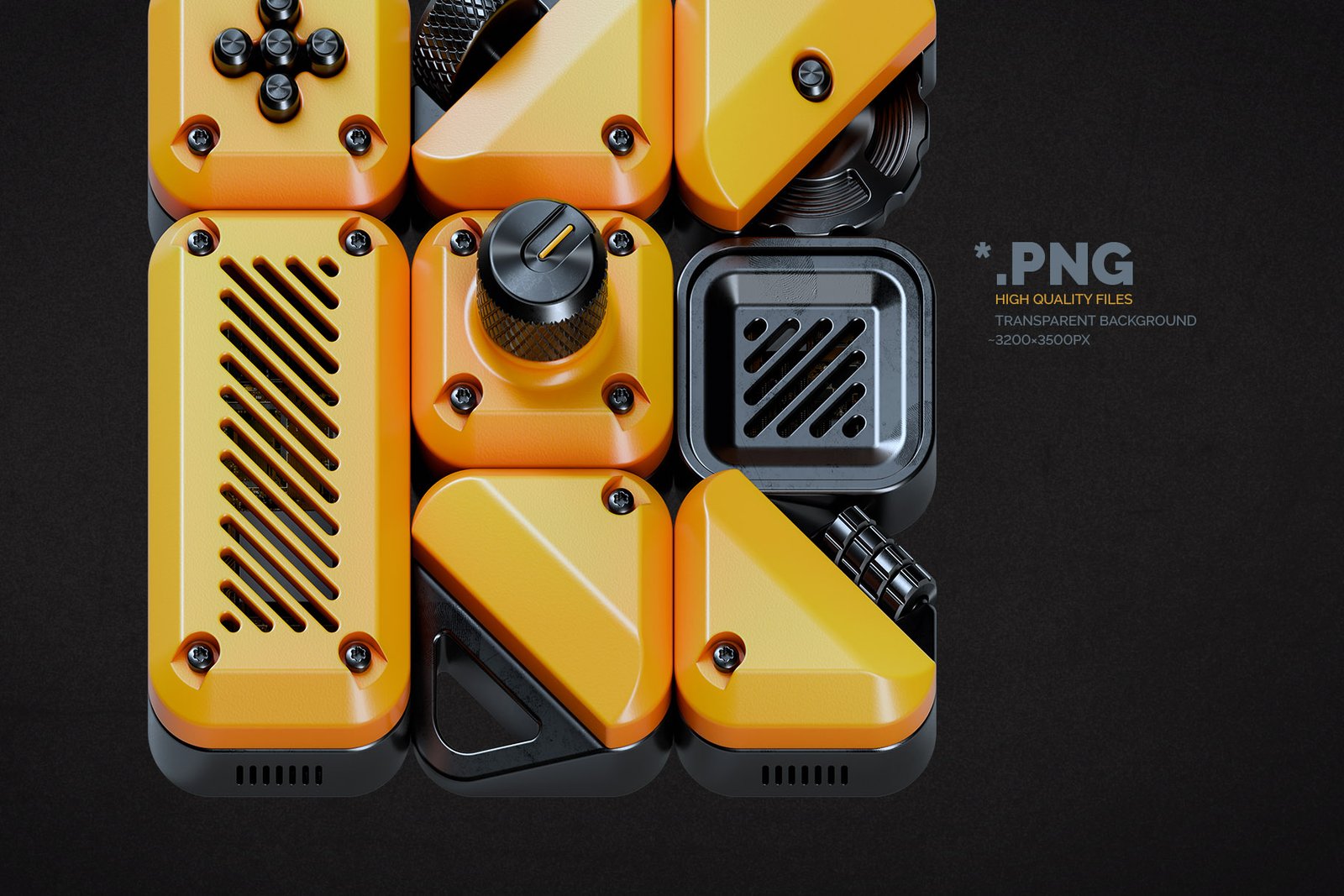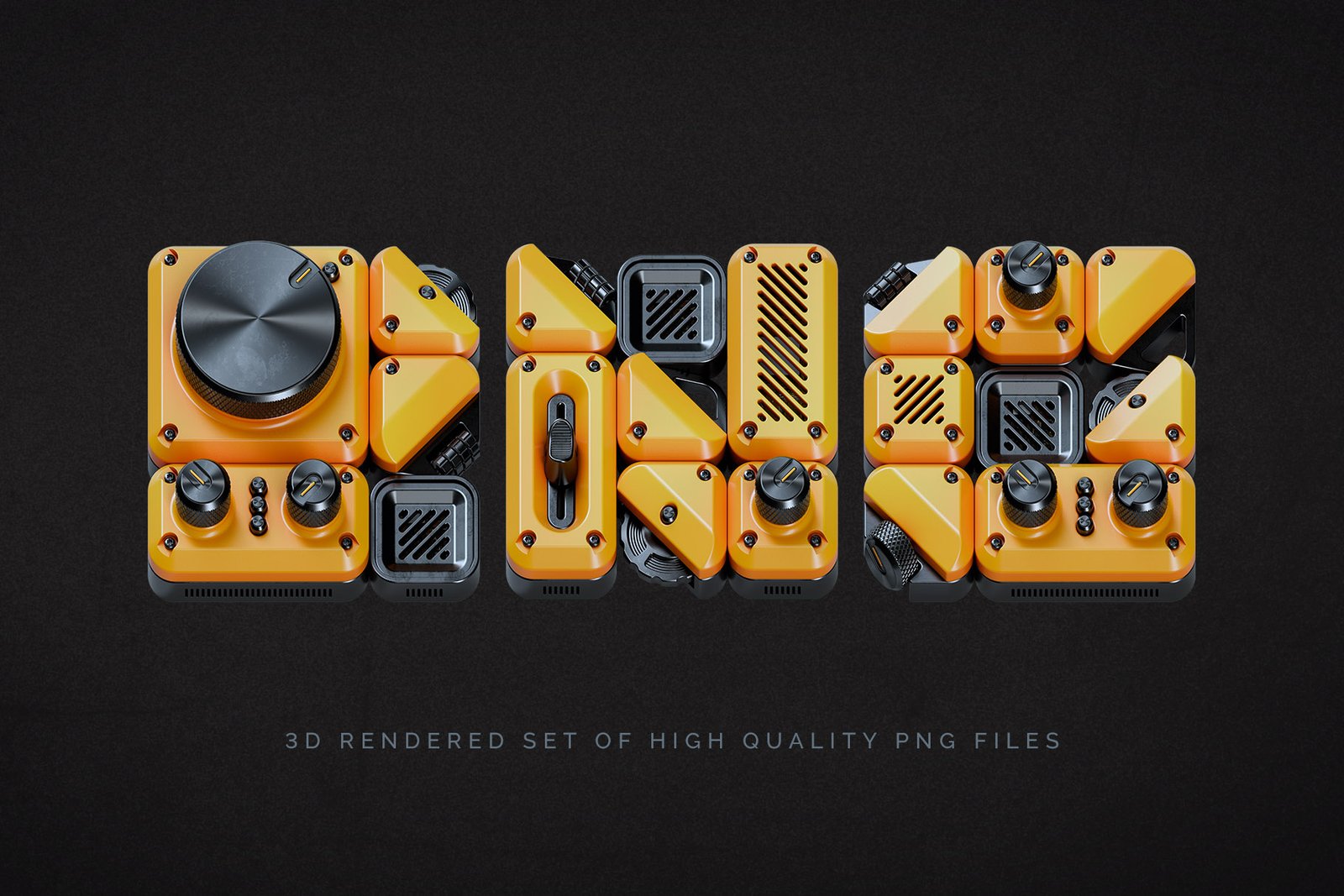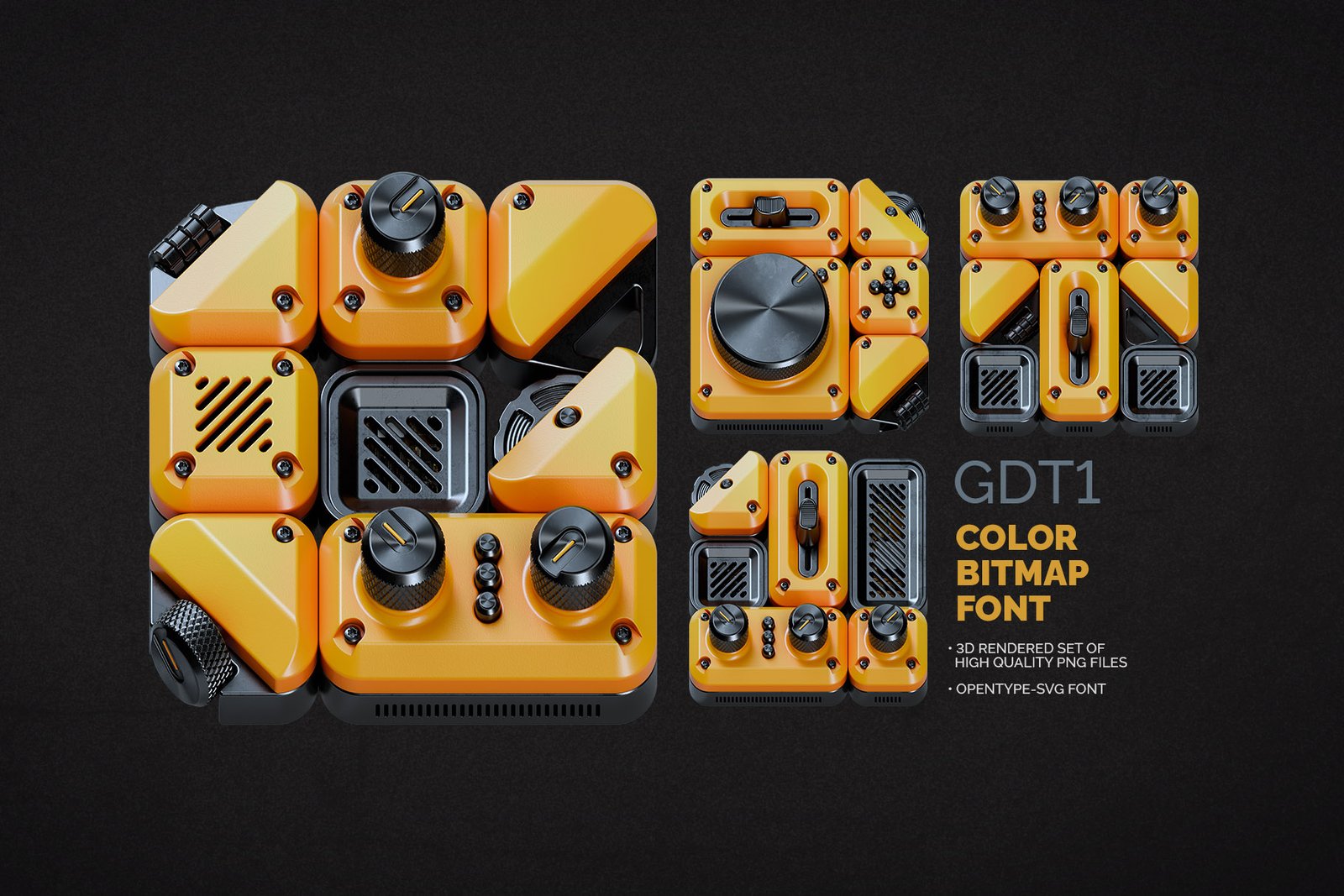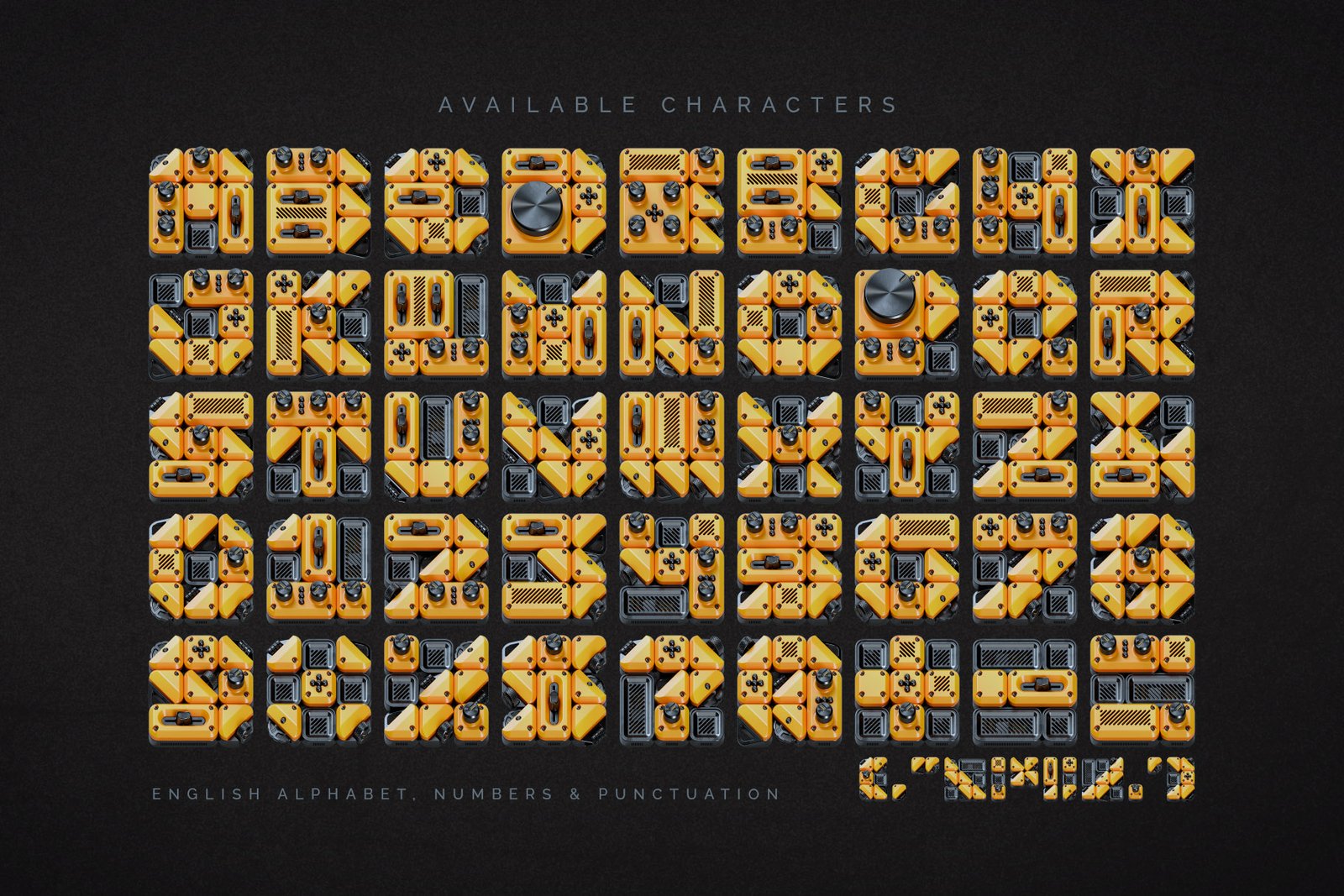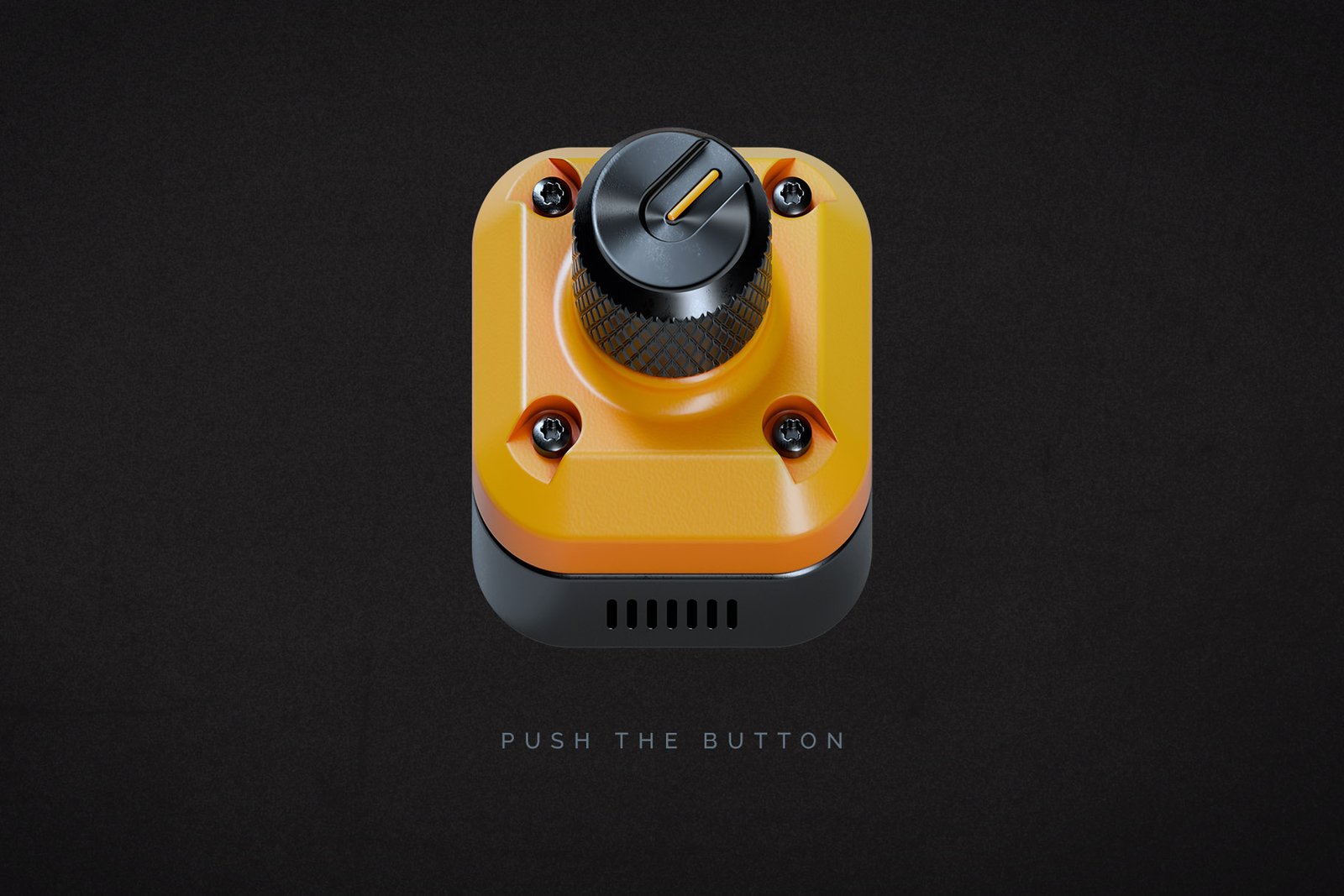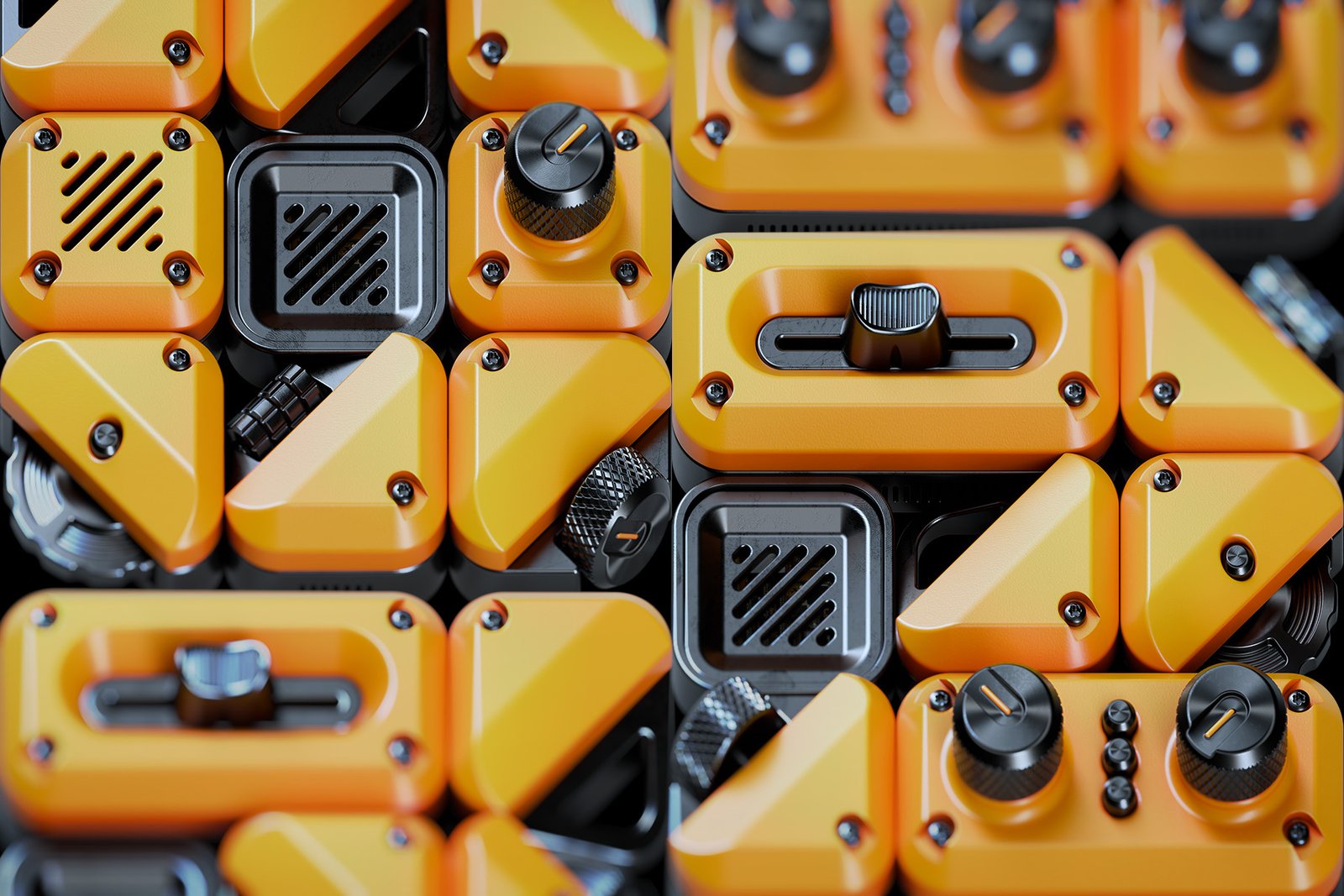
GDT1 - Color Bitmap Font
Hello! Meet the GDT1 color bitmap font — a vibrant 3D-rendered typeface inspired by vintage analog devices like audio amps and industrial panels. Each letter fits together like a mechanical puzzle, built from bolts, switches, dials, and sliders. Ideal for tech-themed visuals, poster art, and creative design projects.